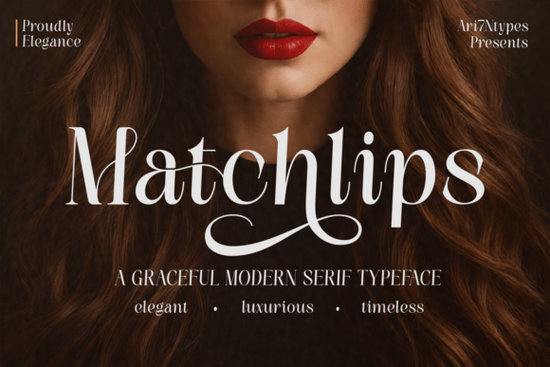
If you're working on a project that calls for understated luxury think wedding invitations, perfume labels, or high-end beauty packaging you’ve probably been searching for a font that feels both modern and timeless. That’s where Matchlips Font comes in. It’s a refined modern serif typeface designed with the kind of grace and precision you’d expect from a fashion editorial or premium cosmetics campaign.
Unlike overly ornate scripts or stark minimal sans-serifs, Matchlips strikes a balance. Its letterforms feature gentle curves, elegant contrast, and subtle swashes that add personality without overwhelming your layout. Whether you’re designing a boutique logo or crafting social media graphics for a jewelry brand, this font brings a sense of sophistication that doesn’t feel dated.
What makes Matchlips stand out from other serif fonts?
Many modern serifs lean either too clinical or too decorative. Matchlips avoids both extremes. It was clearly crafted with real-world applications in mind: every character flows smoothly into the next, thanks to thoughtfully designed ligatures and proportional spacing. The uppercase letters carry presence without shouting, while the lowercase forms maintain readability even at smaller sizes.
Another practical detail? It includes PUA-encoded characters, which means you can access alternate glyphs and swashes directly through design software like Adobe Illustrator or Affinity Designer no need to hunt through symbol menus. Plus, multilingual support ensures it works well for international clients or bilingual projects.
When should you use Matchlips in your designs?
This font shines in contexts where elegance is non-negotiable. Here are just a few ideal uses:
- Luxury branding – Logos, business cards, and brand guidelines for high-end services or products.
- Beauty & cosmetics – Product labels, ad campaigns, or website headers for skincare, makeup, or fragrance lines.
- Wedding stationery – Invitations, place cards, and thank-you notes that feel personal yet polished.
- Fashion editorials – Magazine headlines or lookbook typography that complements editorial photography.
- Jewelry and perfume packaging – Where every detail contributes to perceived value.
If you’re a print-on-demand seller creating custom bridal accessories or a small business owner launching a candle line with a luxe aesthetic, Matchlips gives your work an instant air of credibility.
How does it compare to similar fonts like Zanela?
If you’ve browsed Creative Fabrica’s serif collection, you might have also come across Zanela, another elegant option with soft curves and editorial flair. While Zanela leans slightly more toward romantic, flowing script-like qualities, Matchlips holds its ground as a true serif structured, balanced, and built for clarity alongside beauty. Depending on your project’s tone, one may suit better than the other. For example, Zanela could work beautifully for handwritten-style quotes, while Matchlips excels in clean, typographic layouts that still demand attention.
Tips for using Matchlips effectively
Because of its high contrast and delicate details, Matchlips works best at larger sizes think headlines, logos, or short phrases rather than body text. Pair it with a neutral sans-serif (like Montserrat or Lato) for contrast and legibility in supporting copy.
Avoid overusing swashes; they’re meant as accents, not defaults. Most design apps let you toggle alternates on a per-character basis, so use them selectively to highlight key words or initials.
Also, test your design in grayscale first. If the hierarchy and elegance still read clearly without color, you know the typography is doing its job.
Before you download: a quick checklist
- ✅ Confirm your project needs a serif not a script or sans-serif for that classic-yet-contemporary look.
- ✅ Consider pairing it with a simpler font from collections like other modern serifs for versatile branding systems.
If your creative work benefits from quiet confidence rather than loud trends, Matchlips is worth adding to your toolkit.